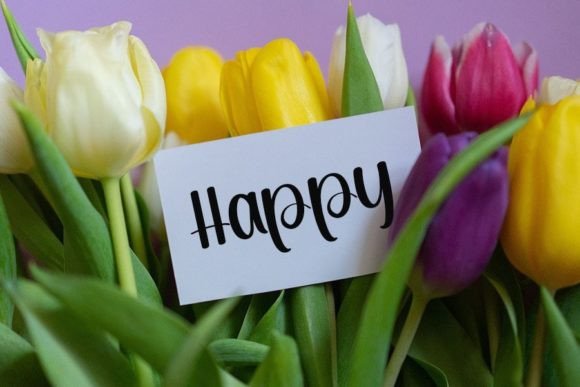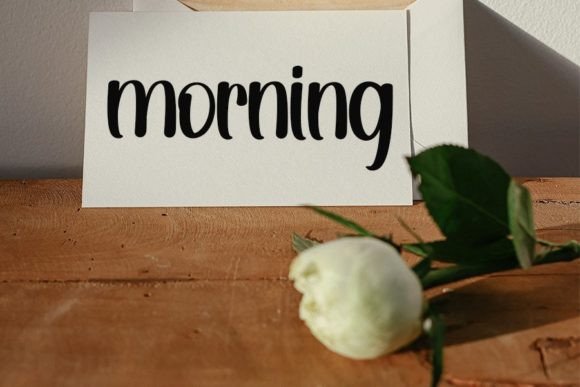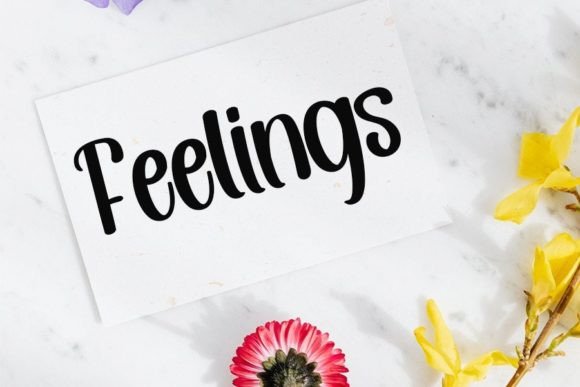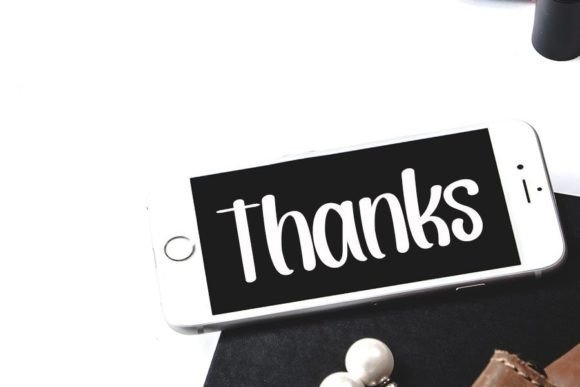
Introducing Drawings Font: Elevate Your Designs with Elegance
Are you on the hunt for a font that adds a touch of sophistication and whimsy to your projects? Look no further than Drawings Font, a beautiful handwritten font that is sure to capture your heart. With its elegant touch and timeless style, Drawings Font is the perfect addition to your design arsenal.
The Beauty of Drawings Font
Drawings Font is a neat and beautiful handwritten font that boasts an incredibly distinct style. Its elegant touch is perfect for a wide range of projects, from wedding invitations and branding materials to social media graphics and digital art. The font’s unique character is sure to make your designs stand out from the crowd and leave a lasting impression on your audience.
What Makes Drawings Font Special?
So, what sets Drawings Font apart from other fonts on the market? Here are just a few of its standout features:
- Elegant Touch: Drawings Font has a sophisticated, elegant feel that is perfect for designs that require a touch of refinement.
- Timeless Style: Unlike trendy fonts that quickly go out of style, Drawings Font has a timeless quality that ensures your designs will remain fresh and relevant for years to come.
- Distinct Character: The font’s unique character is sure to add a touch of personality to your designs and make them more engaging.
- Versatility: Drawings Font is perfect for a wide range of projects, from digital art and social media graphics to branding materials and wedding invitations.
How to Use Drawings Font in Your Designs
Using Drawings Font in your designs is easy. Here are a few tips to get you started:
- Pair it with Other Fonts: Drawings Font pairs perfectly with a variety of other fonts, from bold and modern to elegant and sophisticated.
- Experiment with Colors: The font looks great in a range of colors, from soft pastels to rich jewel tones.
- Add Decorative Elements: Consider adding decorative elements, such as illustrations or graphics, to enhance the font’s elegant touch.
Drawings Font is a must-have for designers and crafters who want to add a touch of elegance and sophistication to their projects. Whether you’re creating digital art, designing branding materials, or crafting wedding invitations, this beautiful handwritten font is sure to inspire your creativity.
Get Ready to Fall in Love with Drawings Font
With its elegant touch, timeless style, and distinct character, Drawings Font is sure to capture your heart. Whether you’re a seasoned designer or a crafty DIY enthusiast, this beautiful font is the perfect addition to your design toolkit. So why wait? Fall in love with Drawings Font today and start creating spectacular designs that will leave a lasting impression on your audience.
In conclusion, Drawings Font is a beautiful handwritten font that is perfect for designers and crafters who want to add a touch of elegance and sophistication to their projects. With its elegant touch, timeless style, and distinct character, this font is sure to inspire your creativity and help you create spectacular designs. So why wait? Try Drawings Font today and see the difference it can make in your designs.